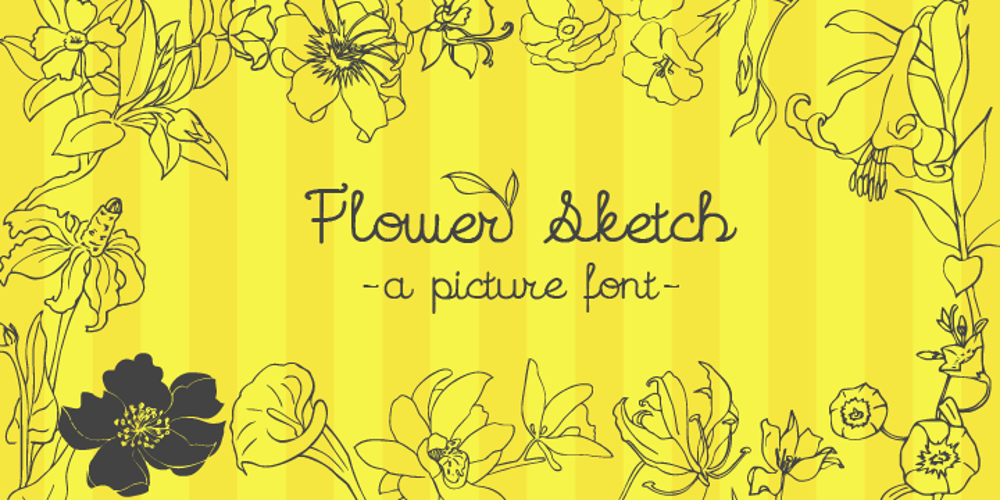
Flower Sketch
Flower Sketch font
Flower Sketch Font Family was designed by Natsuko Hayashida and published by Okaycat. Flower Sketch contains 1 styles and family package options. Flower Sketch is a nice hand-drawn picture font. With these flowers you have endless possibilities for beautiful design.